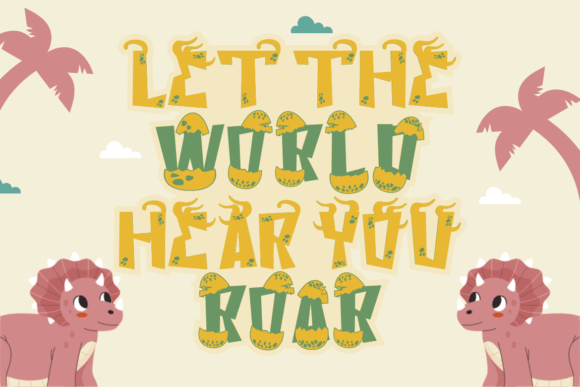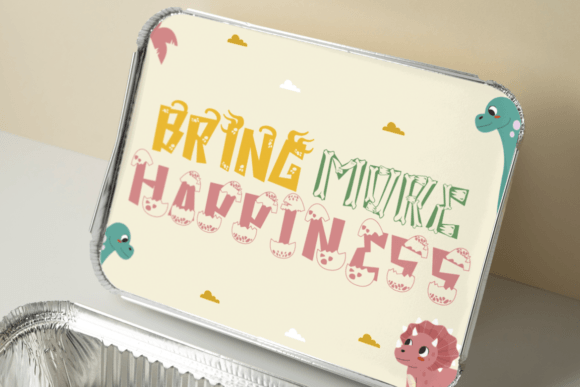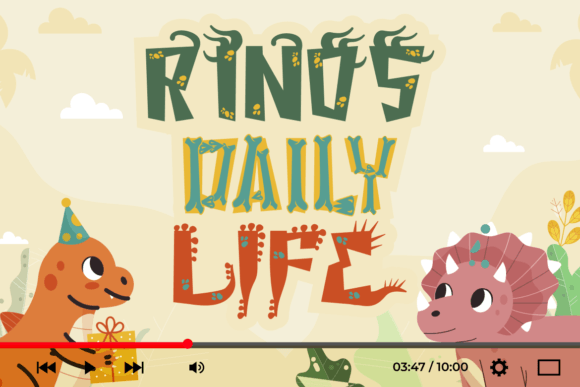
Carnotaurus Font
Discover the prehistoric charm of Carnotaurus – Dino Font, a playful and imaginative typeface that’s perfect for adventures in design. With its bold display characters that echo the might of dinosaurs, this font is a delightful blend of fun and creativity. Each letter is crafted with care, featuring decorative elements that capture the essence of the dino theme, making it a hit with kids and adults alike. The Carnotaurus – Dino Font is not just a font; it’s a time machine that takes your designs back to an age of wonder.Ideal for a wide array of uses, from logos that roar with presence to branding that stands tall like a T-Rex, this font adds a touch of playfulness to any project. It’s perfect for crafting, creating memorable invitations, or packaging that tells a story. Posters come to life, titles grab attention, and business materials get a boost of fun with this decorative font. Whether it’s for greeting cards, stickers, children’s books, or magazines, Carnotaurus – Dino Font makes every word an adventure.